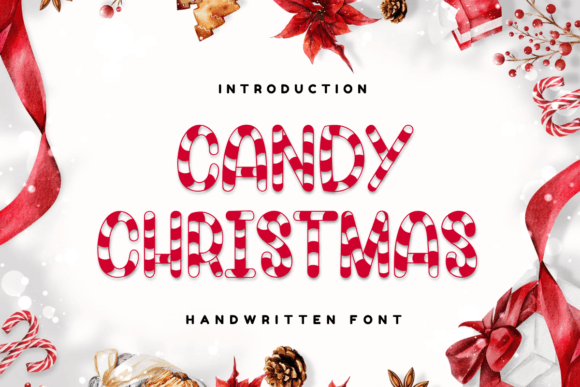
The Sweetest Way to Add Christmas Cheer to Your Designs
As the holiday season approaches, I find myself rummaging through my stash of festive decorations and wrapping paper, reminiscing about Christmases past. This year, I’m excited to add a new sparkle to my holiday traditions – a dash of whimsy and playfulness that’s perfect for the season. And that’s exactly what the Candy Christmas Font brings to the table.
This charming, handwritten font is a designer’s dream come true. Whether you’re creating greeting cards, social media posts, or even designing your own stationery, the Candy Christmas Font is sure to add a touch of warmth and festivity to your work. With its playful, childlike charm, it’s perfect for designers looking to add a little extra magic to their holiday projects.
Candy Christmas Font Key Features
- Font Family: A festive and playful font designed specifically for Christmas and holiday themes.
- Unique Characteristics: Features a whimsical and colorful design, with intricate details and ornaments that evoke a sense of festive cheer.
Candy Christmas Font Review
Overall, I think the Candy Christmas Font is a fun and playful addition to any holiday design project ✨. The font’s whimsical and colorful design makes it perfect for creating eye-catching festive graphics and decorations.
Here are some things that work well about this font:
- Unique and creative design that stands out from more traditional holiday fonts ✨
- Includes a range of characters, including uppercase and lowercase letters, numbers, and punctuation marks ✨
- Works well in both digital and print applications ✨
- May not be suitable for more formal or professional holiday designs ⚠️
- Lacks a clear distinction between regular and bold font weights ⚠️
In my opinion, the Candy Christmas Font is a great choice for anyone looking to add some festive fun to their designs. Just be aware of its limitations and use it in contexts where its playful nature will shine through.
Use the Candy Christmas Font to add a festive touch to your designs, especially during the holiday season. Experiment with different font sizes, colors, and styles to create a unique and eye-catching look.
The Candy Christmas Font is perfect for:
- Holiday greeting cards and invitations
- Christmas party decorations and signage
- Winter-themed social media graphics and ads
Alternatives to Candy Christmas Font
Cream Soda is a playful, cursive font that is reminiscent of handwritten notes. It’s perfect for adding a whimsical touch to designs, especially those that feature festive or vintage themes. Unlike Candy Christmas Font, Cream Soda has a more subtle, elegant feel that makes it suitable for a wider range of applications, from invitations to advertisements.
Great Vibes is a modern, script font that features a flowing, handwritten feel. It’s ideal for creating eye-catching headlines and titles, especially in designs that require a sense of energy and excitement. Compared to Candy Christmas Font, Great Vibes has a more contemporary look and feel, making it a great choice for modern and trendy designs.
Carolyna Pro is a elegant, script font that features a sophisticated, high-end feel. It’s perfect for adding a touch of luxury and refinement to designs, especially those that feature high-end products or services. Unlike Candy Christmas Font, Carolyna Pro has a more mature, professional look that makes it suitable for a wide range of applications, from branding to publishing.